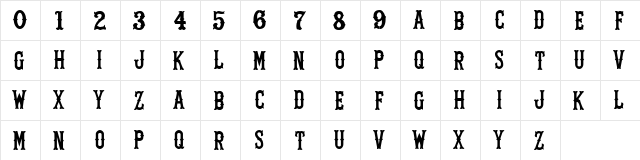
RedSoxNation Normal
Design Context for RedSoxNation Typeface
RedSoxNation takes a measured approach to typography — its balanced proportions and neutral character make it a reliable workhorse for both digital and print work.
Pro Tip: Use RedSoxNation in both headline and body roles to test its range before committing to a single application.